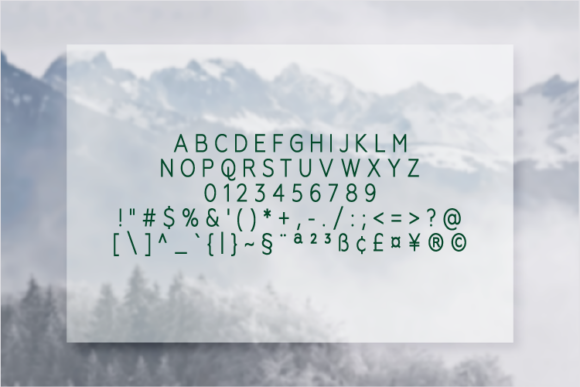
Introducing Allovoneue Semi-Bold Font: A Fresh Geometric Sans-Serif Typeface
In the world of typography, a new font family has emerged to capture the attention of designers and crafters alike. Meet Allovoneue, a modern, geometric sans-serif font that is making waves with its unique blend of sharp edges, geometrical letterforms, and versatility. In this article, we’ll dive into the features and benefits of Allovoneue Semi-Bold Font, and explore how it can elevate your design projects.
What is Allovoneue Font?
Allovoneue is a fresh, geometric sans-serif font family that draws inspiration from neo-grotesk fonts of the 20th century. Characterized by its geometrical letterforms, sharp edges, and minimal stroke contrast, Allovoneue is a typeface that exudes modernity and sophistication. The font’s design is rooted in the principles of geometric typography, where simple shapes and clean lines come together to create a visually appealing and highly legible typeface.
Key Features of Allovoneue Semi-Bold Font
- Geometric Design: Allovoneue’s geometric design makes it perfect for projects that require a modern and sleek look.
- Sharp Edges: The font’s sharp edges add a touch of edginess and sophistication to any design.
- Minimal Stroke Contrast: Allovoneue’s minimal stroke contrast ensures that the font remains legible even at smaller sizes.
- Versatility: The font’s versatility makes it suitable for a wide range of applications, from magazines and posters to branding and packaging.
Uses of Allovoneue Semi-Bold Font
Allovoneue Semi-Bold Font is an incredibly versatile typeface that can be used in various design projects. Here are some of the ways you can utilize this font:
- Magazines and Newspapers: Allovoneue’s clean and legible design makes it perfect for body text in magazines and newspapers.
- Posters and Flyers: The font’s bold and eye-catching design makes it ideal for posters and flyers that require a strong visual impact.
- Branding and Packaging: Allovoneue’s modern and sophisticated design makes it suitable for branding and packaging projects that require a fresh and contemporary look.
- Digital Media: The font’s geometric design and clean lines make it perfect for digital media, including websites, social media, and mobile apps.
Benefits of Using Allovoneue Semi-Bold Font
Using Allovoneue Semi-Bold Font in your design projects offers several benefits, including:
- Improved Legibility: The font’s clean design and minimal stroke contrast ensure that your text remains legible even at smaller sizes.
- Enhanced Visual Appeal: Allovoneue’s geometric design and sharp edges add a touch of sophistication and modernity to your designs.
- Versatility: The font’s versatility makes it suitable for a wide range of applications, saving you time and effort in finding the right font for your project.
- Unique Look: Allovoneue’s unique design ensures that your designs stand out from the crowd and leave a lasting impression on your audience.
In conclusion, Allovoneue Semi-Bold Font is a fresh and modern geometric sans-serif typeface that offers a unique blend of style, versatility, and legibility. With its geometric design, sharp edges, and minimal stroke contrast, Allovoneue is perfect for designers and crafters looking to add a touch of sophistication and modernity to their designs. Whether you’re working on a magazine, poster, branding project, or digital media, Allovoneue Semi-Bold Font is an excellent choice that is sure to elevate your designs to the next level.